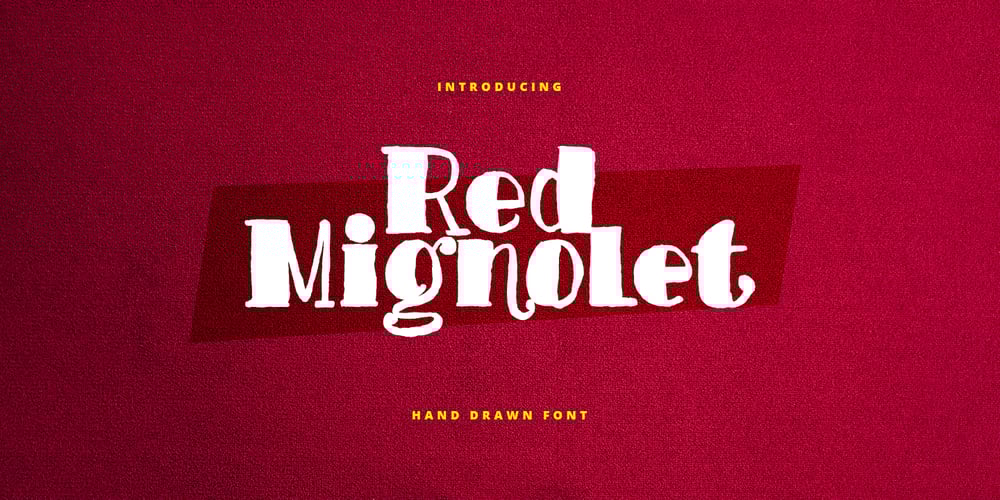
Red Mignolet
Red Mignolet font
Red Mignolet Font Family was designed by Juni Fadil Putra and published by FadeLine Studio. Red Mignolet contains 1 styles and family package options. Red Mignolet is a hand-drawn slab type brush font. This font adopts a bold, firm, natural and trendy style. Very suitable to meet your design and packaging product needs at this time, especially when the current trend is Branding on MUG or CUP with natural fonts like painted!